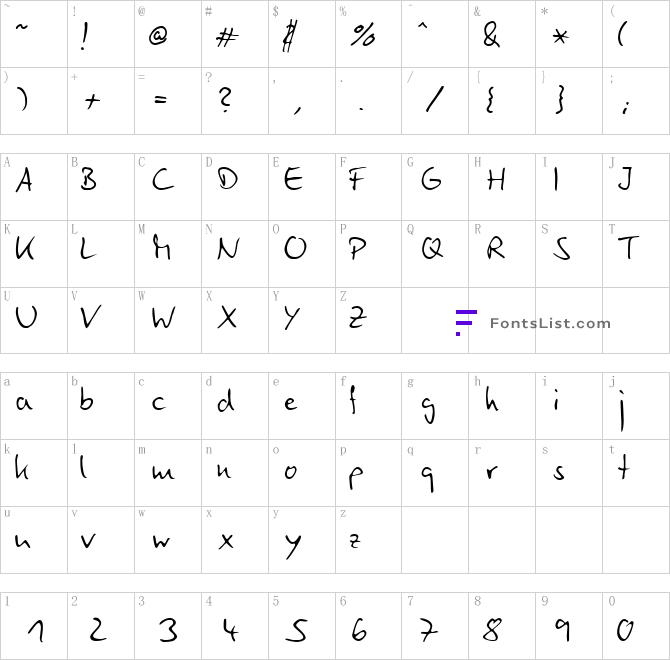
- Font Name:Canadian Penguin
Canadian-Penguin-Regular.ttf is a very beautiful artistic font, Canadian-Penguin-Regular.ttf is widely used in the design and printing of various books and pictures,Canadian-Penguin-Regular.ttf has a strong visual impact,Canadian-Penguin-Regular.ttf is a commonly used font in newspapers, magazines and books, and is used in posters, e-commerce Poster design, store design, logo design, font design and other fields.Canadian-Penguin-Regular.